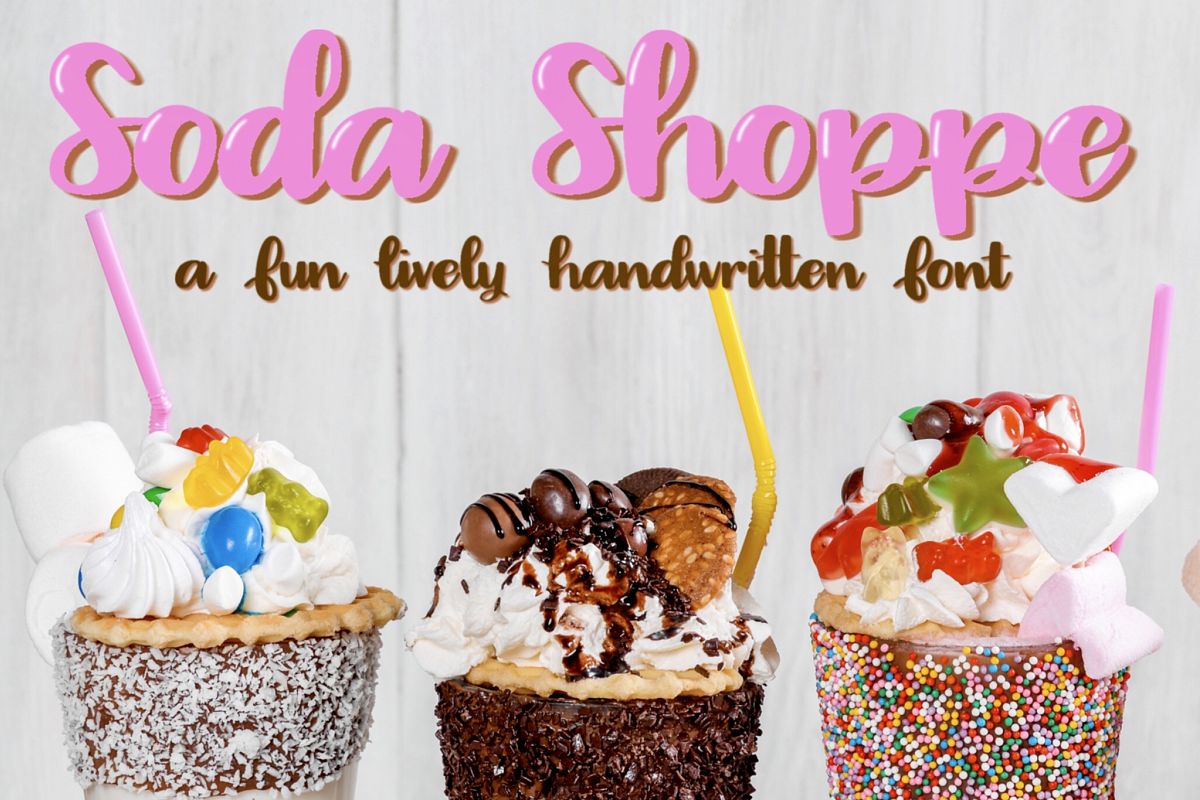
Soda Shoppe
Soda Shoppe is a handwritten script font that would be perfect for logos, cards, party invitations, or just something fun to liven up your font book!